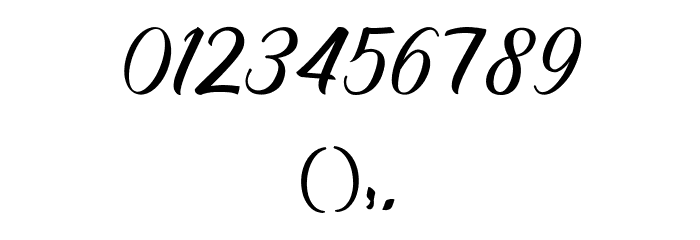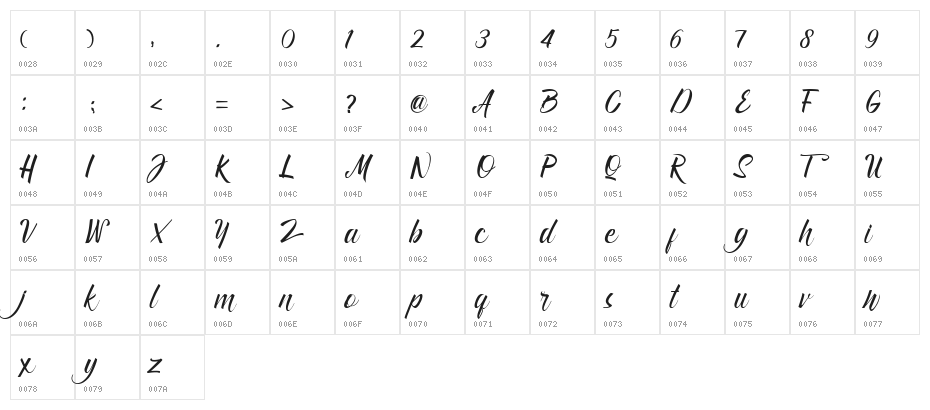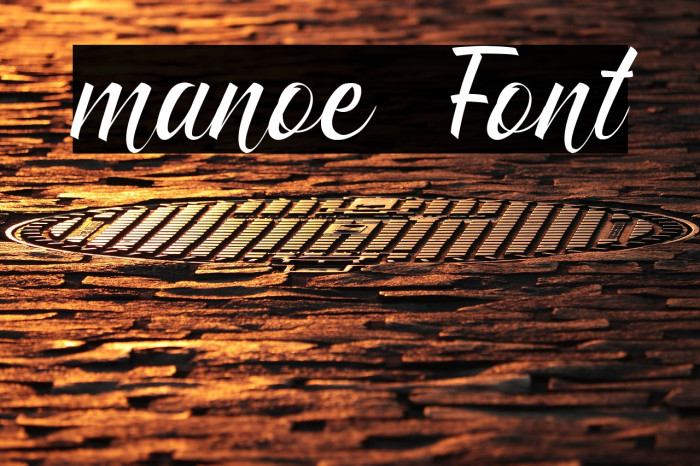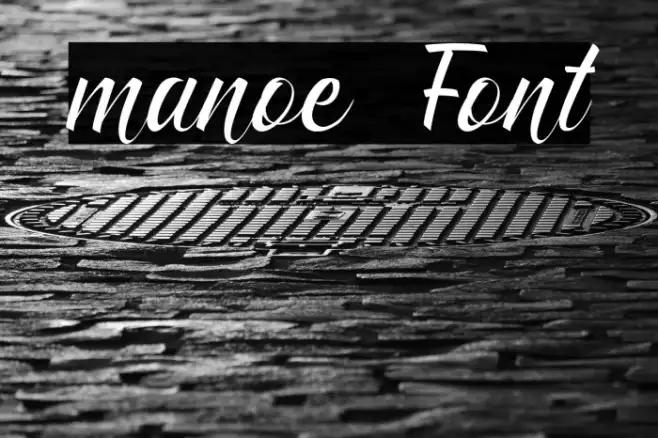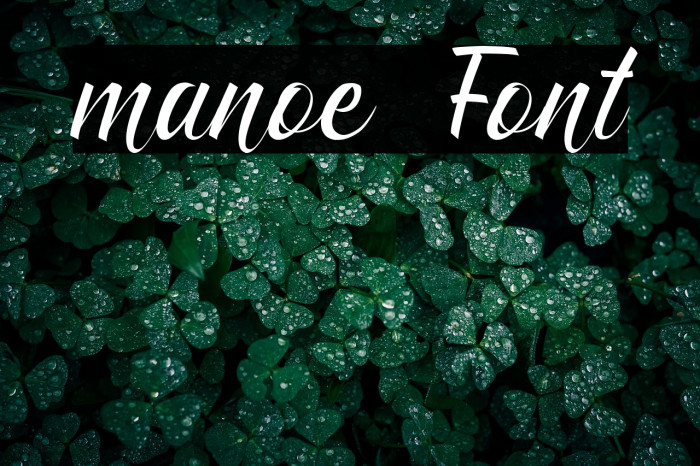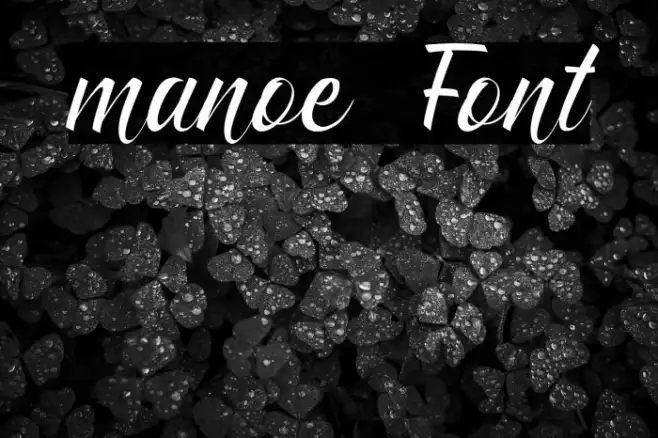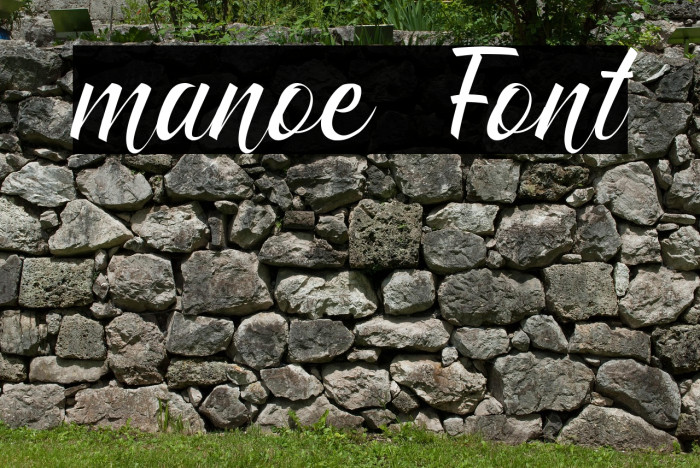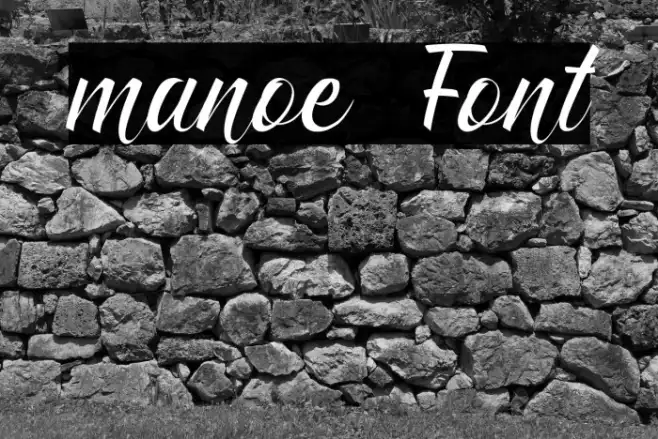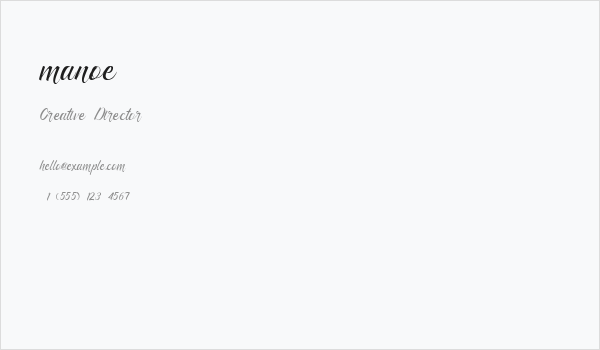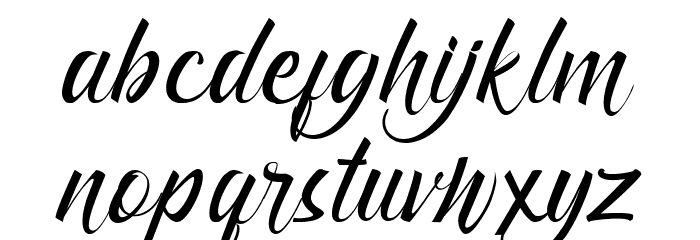
manoe Font
manoe Description
This elegant script font features a flowing, cursive style with a modern twist. The characters are gracefully connected, creating a sense of fluidity and movement. The uppercase letters are bold and sweeping, while the lowercase letters maintain a consistent rhythm with delicate curves. The numerals are stylishly integrated, complementing the overall aesthetic. Special characters are thoughtfully designed to match the font's sophisticated appearance. This font exudes a sense of elegance and refinement, making it ideal for projects that require a touch of class.
Use CaseLogos, Invitations, Branding
Proposed ProjectsIdeal for wedding invitations, luxury branding, elegant packaging, and high-end product labels.